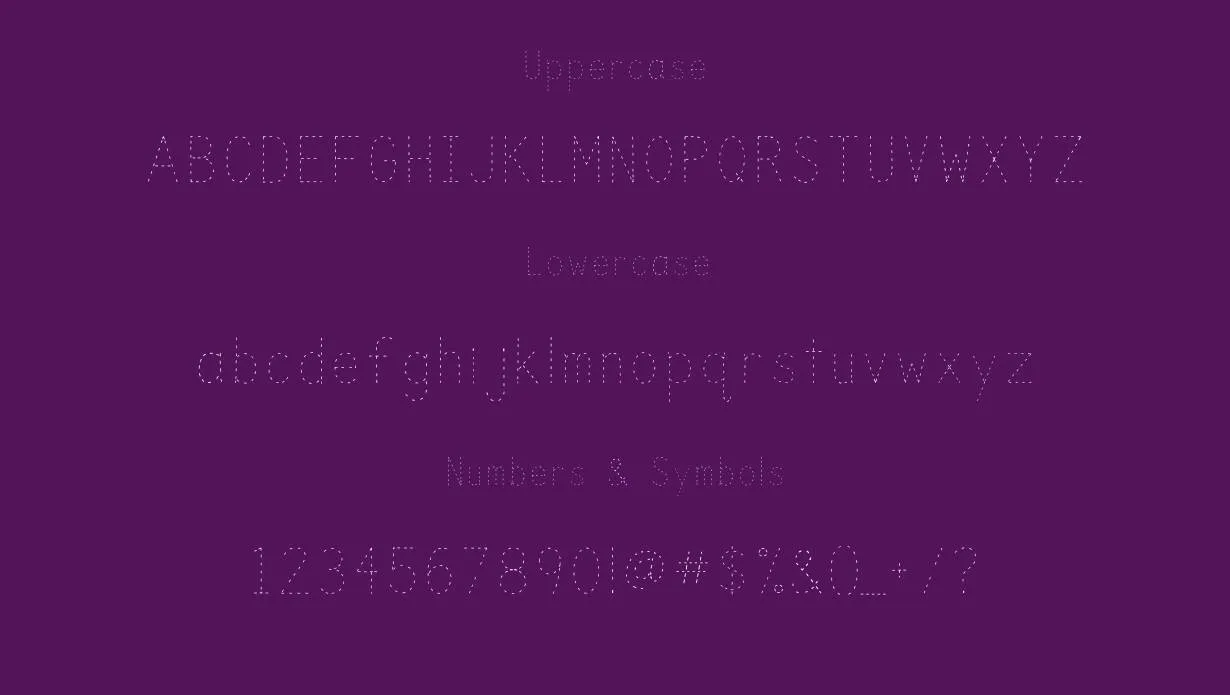
Trace Font is a sleek and modern typeface that adds a contemporary touch to design projects. With its clean lines and versatile design, it’s often used in various applications, from branding to web design, where a modern and sophisticated appearance is desired.
The font’s simplicity and readability make it a valuable tool for creating sleek and professional design work.
| Name | Trace Font |
| Designer | Ari Juanda |